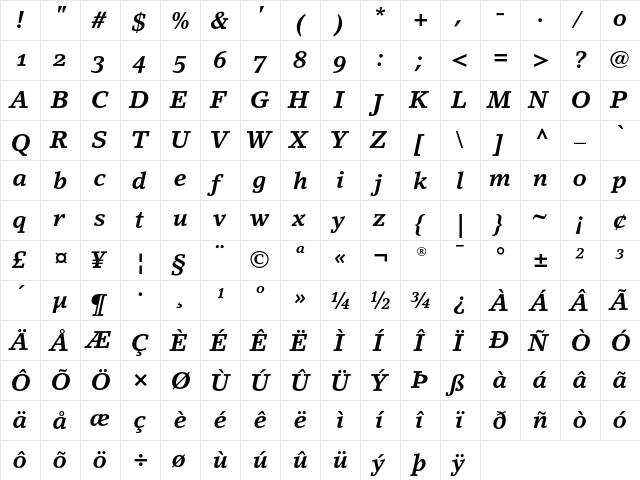
LinoLetter Bold Italic Oldstyle Figures
Design Context for LinoLetter Typeface
LinoLetter carries the refined structure of traditional serif typography, with bracketed terminals and considered proportions that communicate credibility and craft. Its italic angle brings a sense of urgency and motion to the letterforms. Its bold stroke weight gives it real presence on the page.
Pro Tip: Set LinoLetter with slightly loose tracking in headlines to let each letterform's detail read clearly at display sizes.